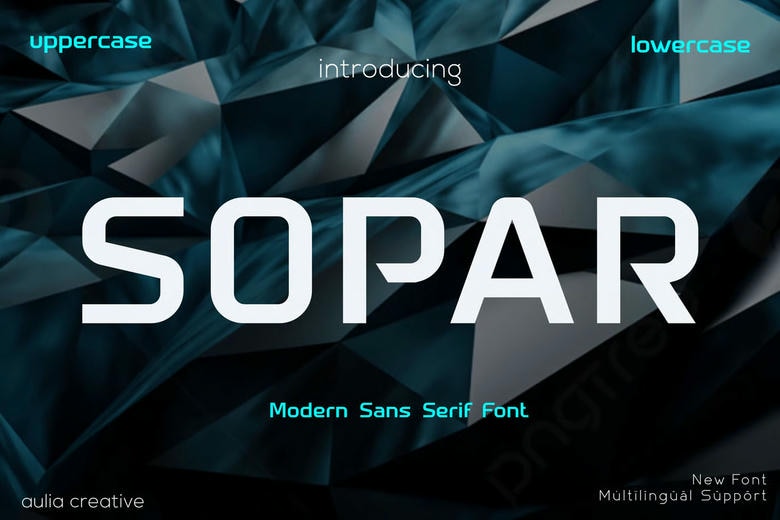
Sopar Font
Sopar is a high-quality sans-serif font created by Auliacreative. You can download it for free and use it for personal projects. This font works well for elegant logos, branding, travel promotions, magazines, beauty products, packaging, quotes, or as a stylish text overlay on any background image.
Sopar Sans Serif Font